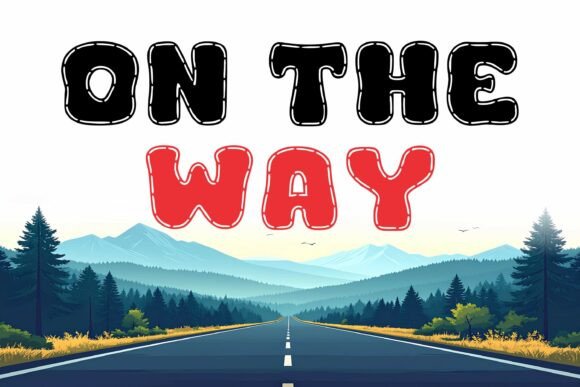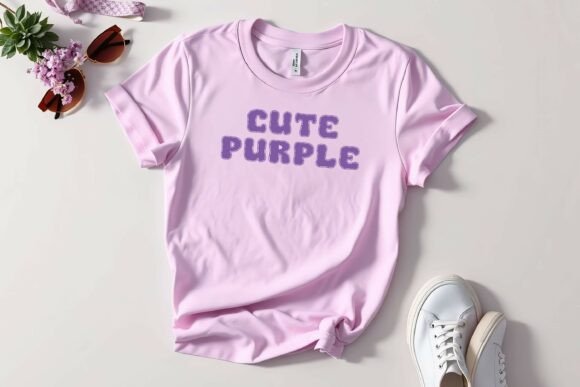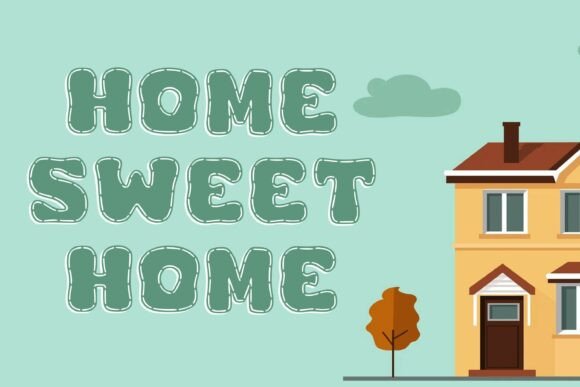
Introduction to Road Holiday Font
Inject a burst of fun and whimsy into your projects with the Road Holiday Cute Display Font, a playful, chunky typeface designed to delight and engage a young audience.
This incredibly friendly font features bold, rounded letterforms that look hand-stitched, giving it an adorable and tactile craft feel The Road Holiday typeface is absolutely perfect for children’s books, school projects, vibrant game interfaces, festive party invitations, and charming product packaging aimed at kids.